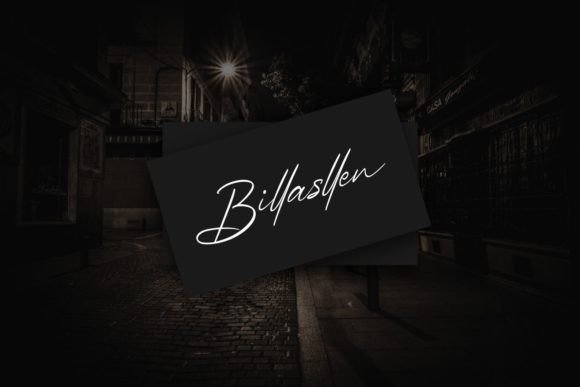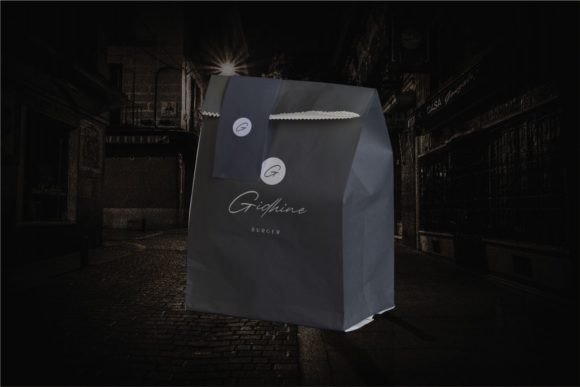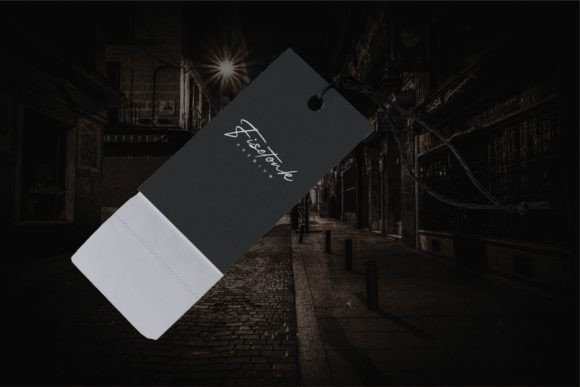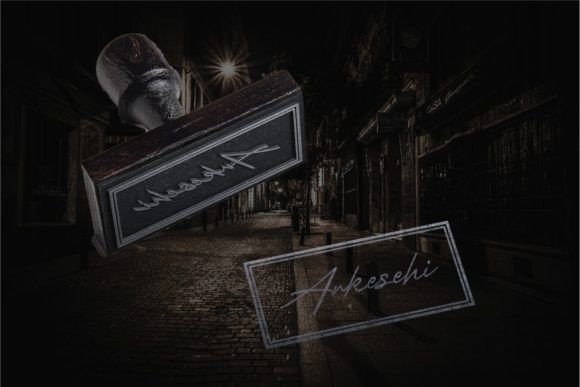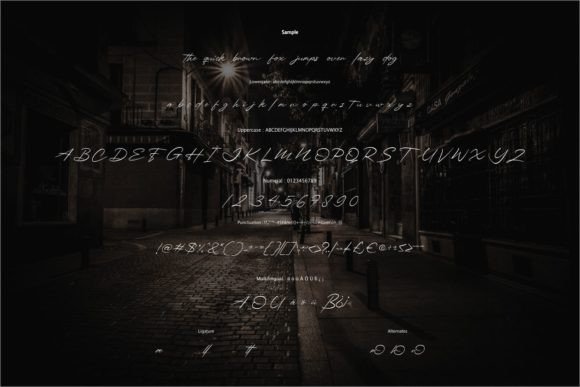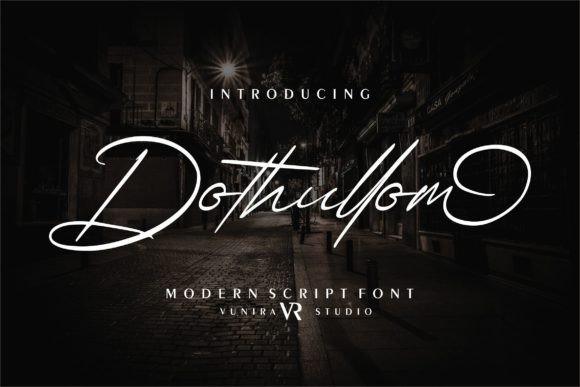
Dothullom Font: Elevate Your Designs with Elegance and Sophistication
In the world of typography, fonts play a crucial role in conveying the tone and personality of a design. For designers and crafters seeking to add a touch of elegance and class to their work, Dothullom Font is an exceptional choice. This lovely and delicate script font is specifically crafted to provide a beautiful and refreshing look to various designs, making it an ideal selection for those who value sophistication and refinement.
The Characteristics of Dothullom Font
Dothullom Font boasts a range of characteristics that set it apart from other script fonts. Its delicate strokes, elegant curves, and precise lettering create a visually appealing aesthetic that is both soothing and refined. The font’s unique features include:
- Delicate strokes: Dothullom’s strokes are carefully crafted to provide a soft, gentle look that adds a touch of sophistication to any design.
- Elegant curves: The font’s curves are smooth and flowing, creating a sense of continuity and harmony in the text.
- Precise lettering: Each letter in Dothullom Font is meticulously designed to ensure perfect legibility and readability.
Uses of Dothullom Font
Dothullom Font’s versatility makes it suitable for a wide range of design applications, including:
- Wedding and event designs: Add a touch of romance and elegance to wedding invitations, save-the-date cards, and other event materials.
- Branding and packaging: Use Dothullom Font to create sophisticated brand identities and packaging designs that exude luxury and refinement.
- Stationery and paper crafts: Elevate your stationery, journals, and paper crafts with Dothullom’s beautiful and delicate script.
- Digital designs: Incorporate Dothullom Font into your digital designs, such as social media graphics, blog headers, and website content, to add a touch of elegance and sophistication.
Why Choose Dothullom Font?
With so many fonts available, why choose Dothullom Font for your designs? Here are a few compelling reasons:
- Unique and distinctive: Dothullom Font offers a fresh and unique perspective on script typography, setting it apart from more traditional fonts.
- Elegant and refined: The font’s delicate strokes and elegant curves create a sophisticated aesthetic that is perfect for designs that require a touch of luxury.
- Highly legible: Despite its delicate nature, Dothullom Font is highly legible, making it suitable for body text and other applications where readability is essential.
Tips for Using Dothullom Font
To get the most out of Dothullom Font, consider the following tips:
- Pair with complementary fonts: Combine Dothullom Font with complementary fonts to create visual interest and add depth to your designs.
- Experiment with colors: Dothullom Font looks stunning in a range of colors, from soft pastels to rich jewel tones. Experiment with different colors to find the perfect match for your design.
- Pay attention to spacing: To maintain the font’s elegant and refined aesthetic, ensure that you leave sufficient spacing between lines and words.
Dothullom Font is a beautiful and delicate script font that offers a unique blend of elegance and sophistication. With its delicate strokes, elegant curves, and precise lettering, this font is perfect for designers and crafters seeking to add a touch of refinement to their work. Whether you’re creating wedding designs, branding materials, or digital content, Dothullom Font is an exceptional choice. So why not give it a try and elevate your designs to new heights of elegance and sophistication?